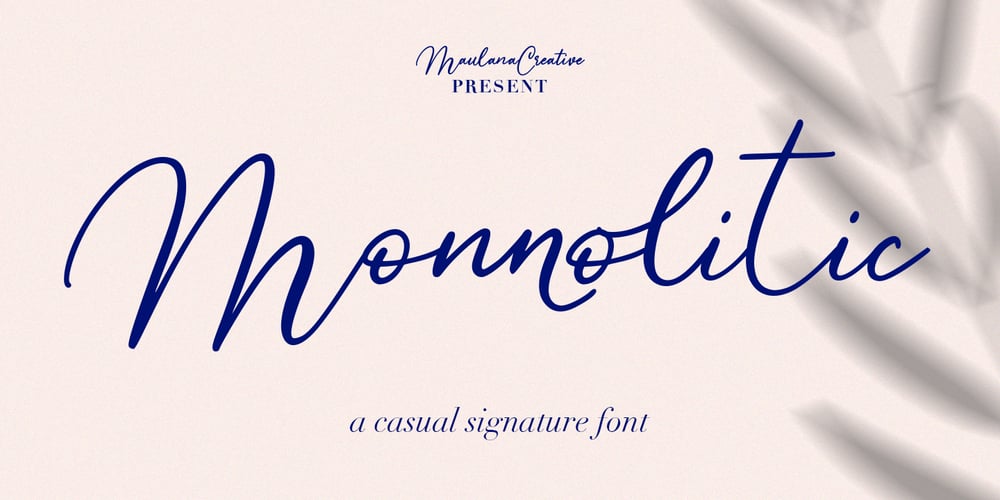
Monnolitic
Monnolitic font
Monnolitic Font Family was designed by Gilang Maulana and published by Maulana Creative. Monnolitic contains 1 styles and family package options. Monnolitic Casual Signature FontGive your designs an authentic handcrafted feel. “Monnolitic Casual Signature Font” is perfectly suited to signature, stationery, logo, typography quotes, magazine or book cover, website header, clothing, branding, packaging design and more.Thanks for use this font ~ Maulana